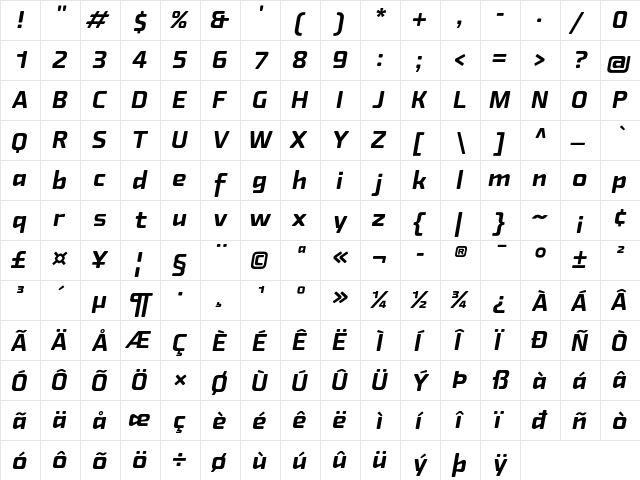
Fishmonger EES Italic
Design Context for Fishmonger EES Typeface
Fishmonger EES offers clean, dependable letterforms without strong stylistic allegiance, making it a practical choice for designers who need flexibility. Its italic angle brings a sense of urgency and motion to the letterforms.
Pro Tip: Use Fishmonger EES for emphasis, pull quotes, and subheadings where its slanted energy can add rhythm to the layout.